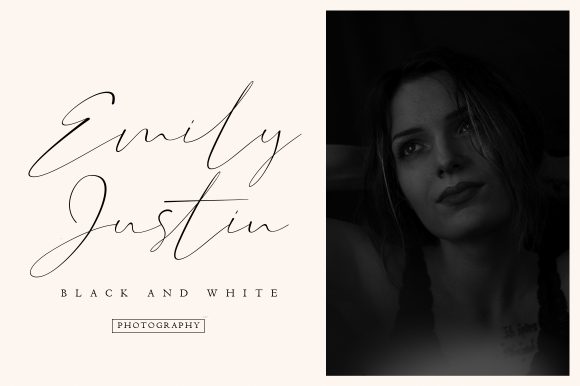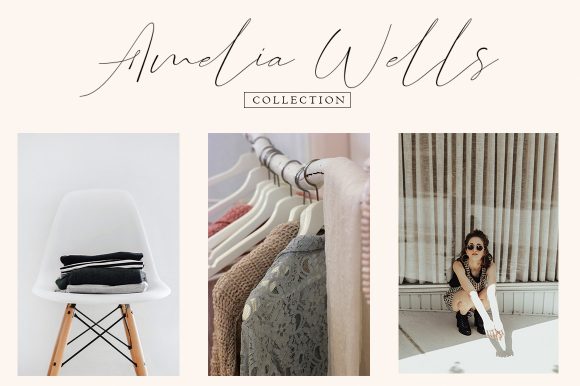
England Font
db-ku.com - Script & Handwritten -- England is a beautiful signature font. It has a fresh, modern and natural handwritten style that will add a distinctive touch to your perfect designs.